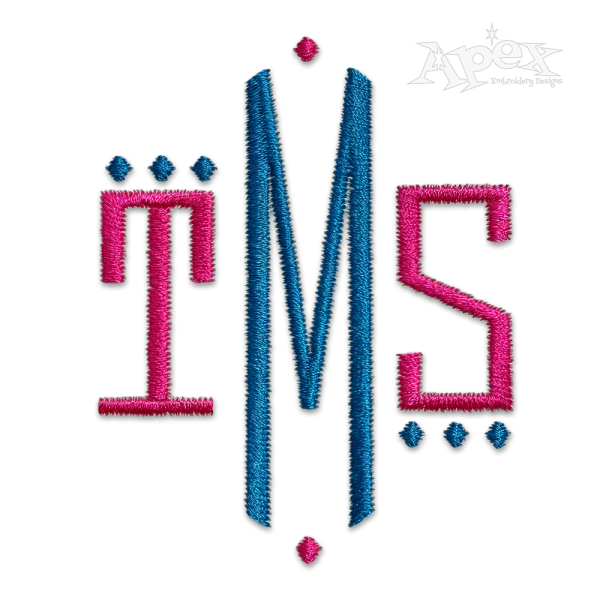
Square Dots Monogram Embroidery Font
Retro Chic Square with Diamond Dots Monogram 3-Letter Initial Machine Embroidery Fonts. Clean Modern Thin Style Custom Lettering Alphabet Name logo.
- Diamond Square Dots Monogram Font
- Perfect for 3-Letter Monograms